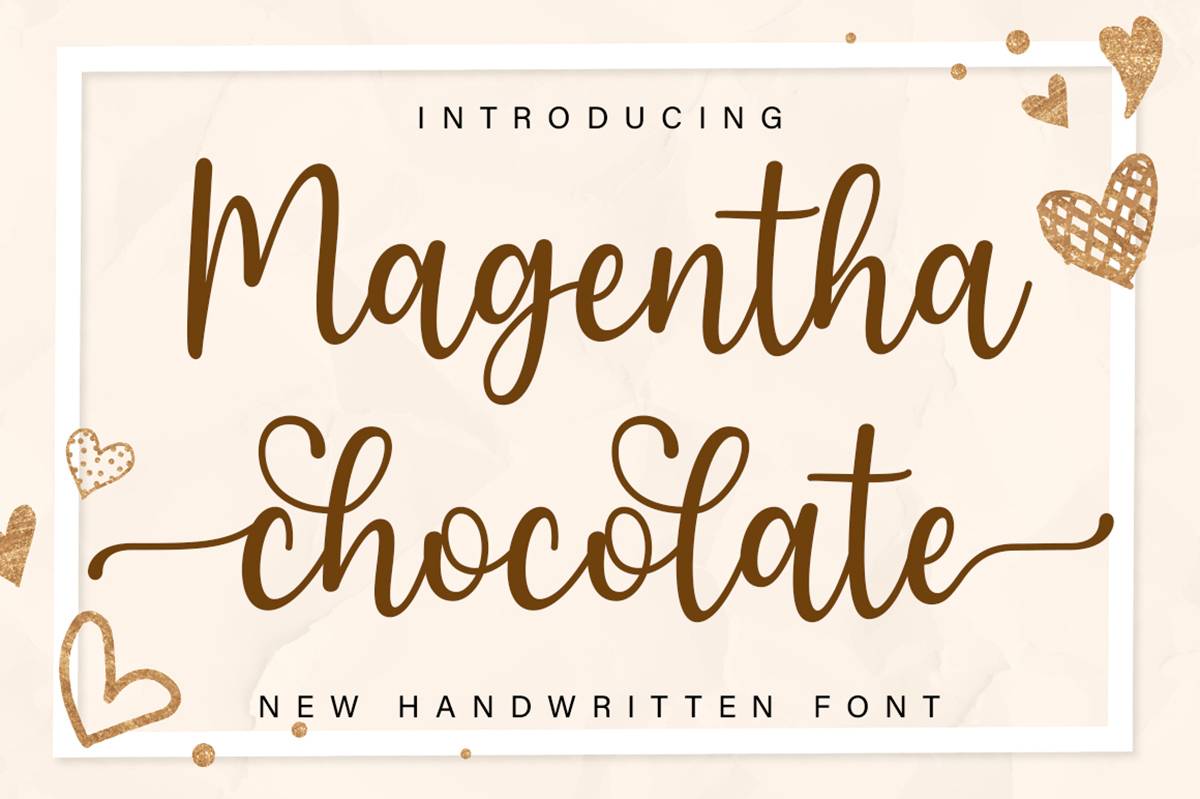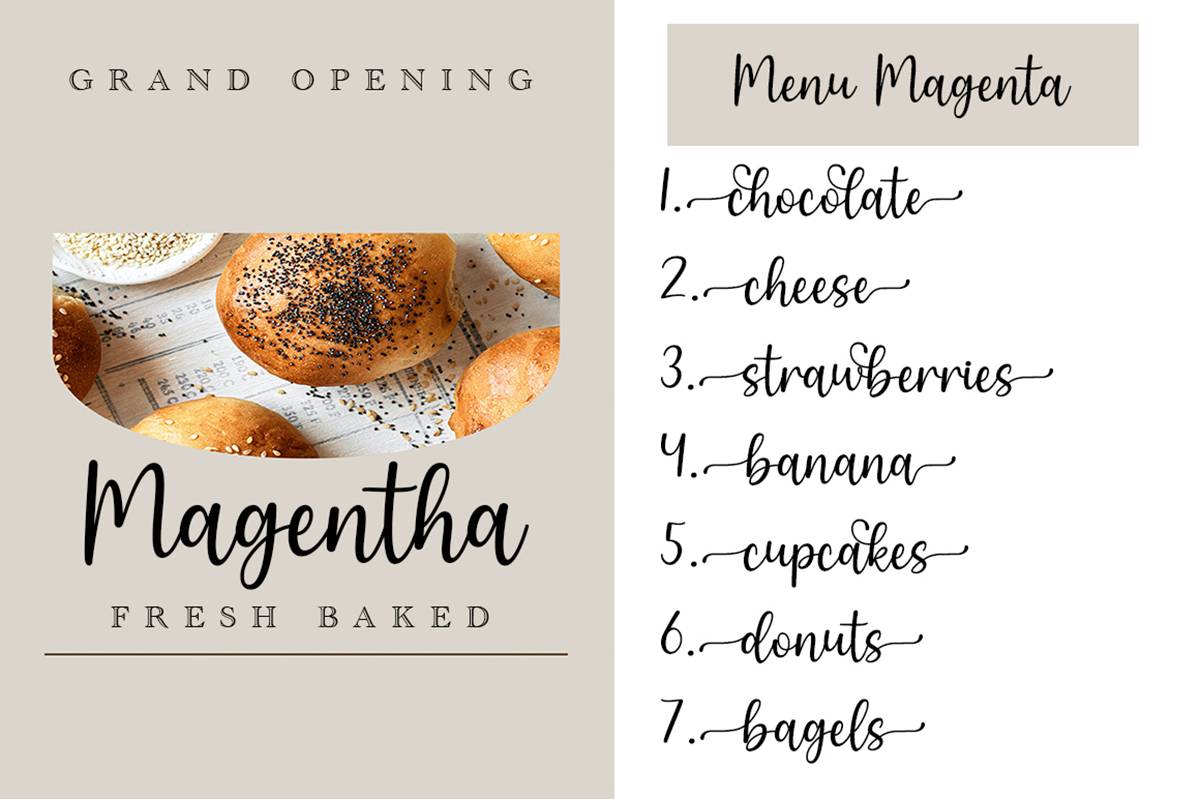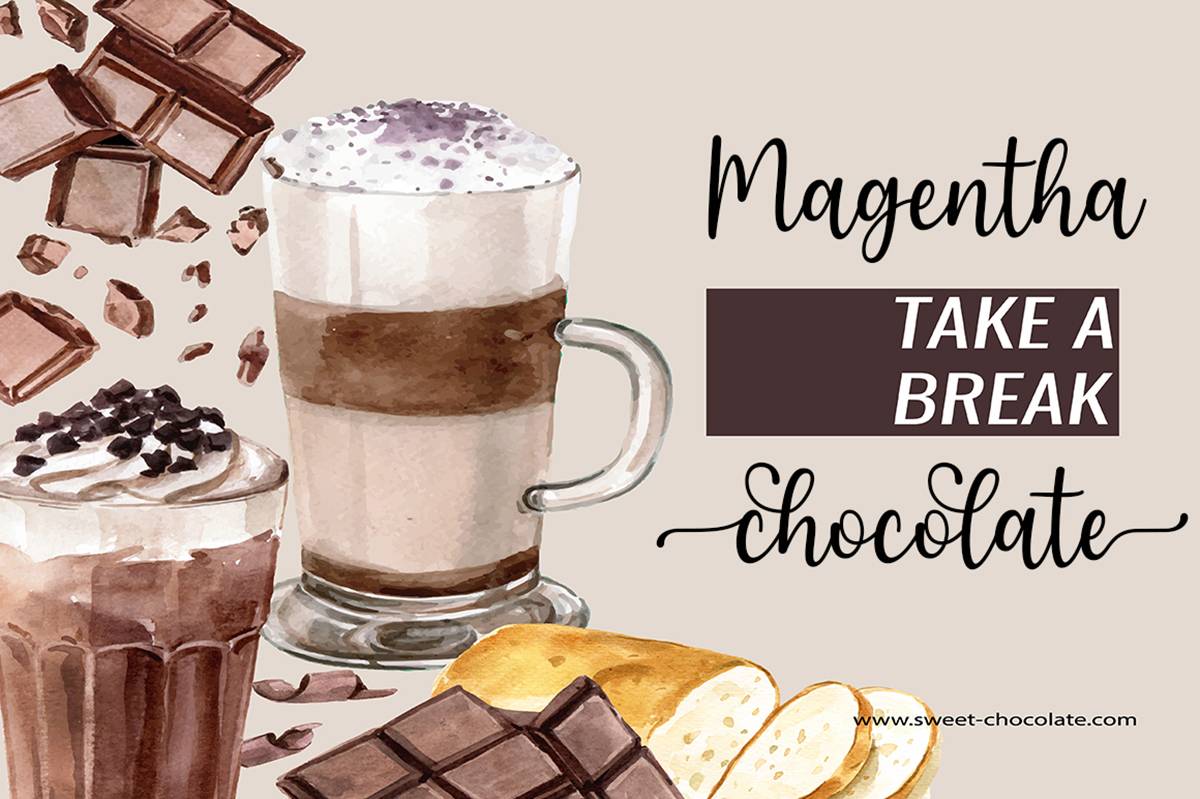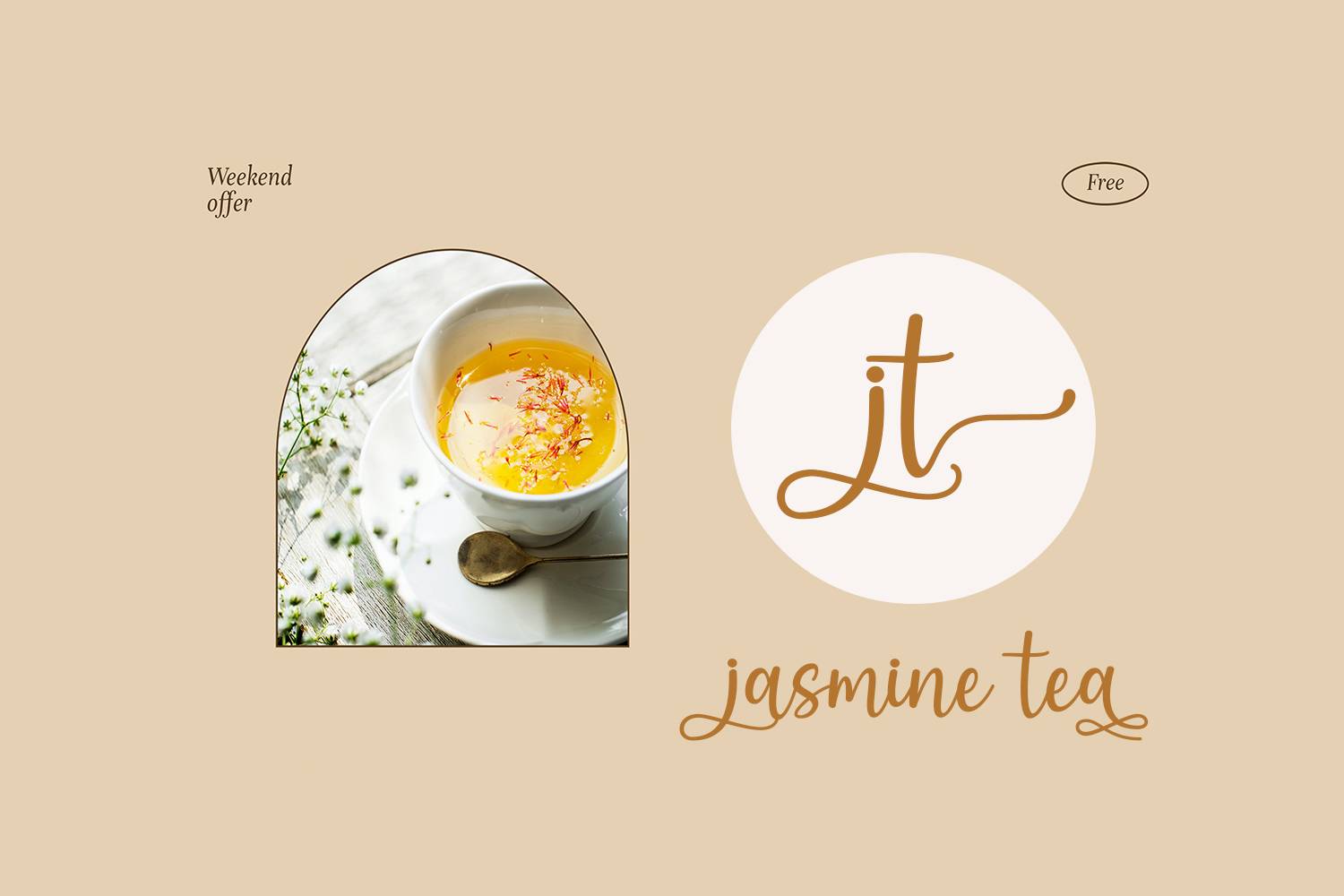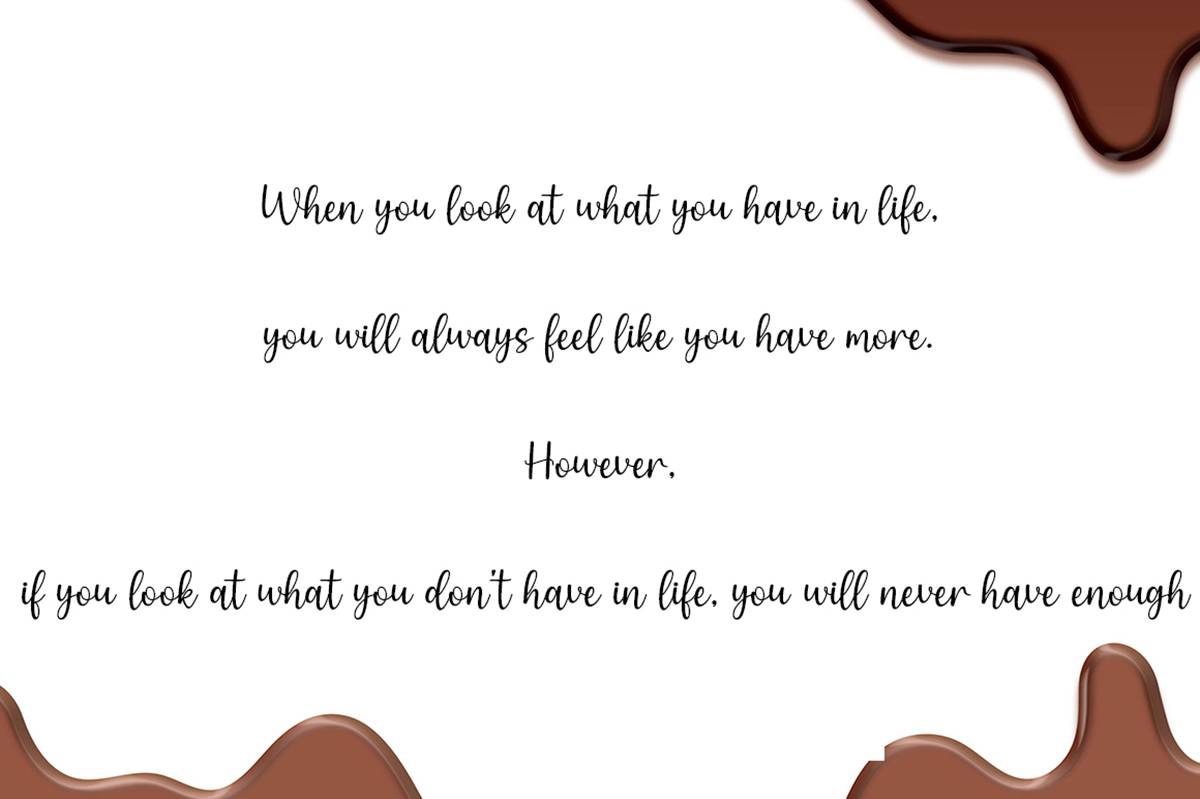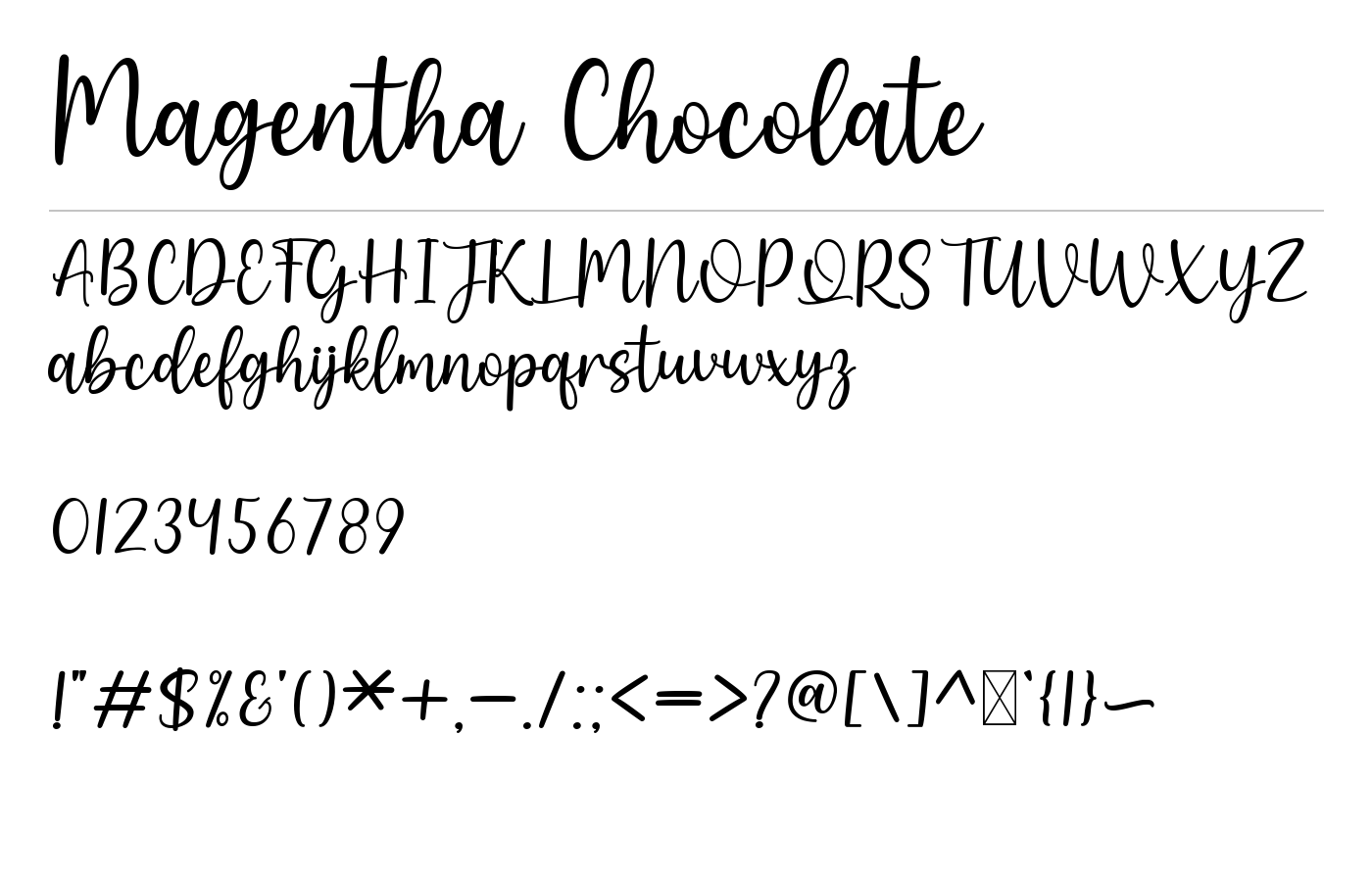
Magentha is a playful and elegant handwritten script font with a light, airy feel and smooth, flowing strokes. Its tall x-height and casual letterforms make it ideal for inviting, creative designs such as invitations, branding, and packaging that seek a personal and friendly touch. This font shines in headlines and decorative use, bringing warmth and charm to any project.
Magentha Font
About Magentha Font
| Font family | Magentha Font |
| Designer | Wahyudi |